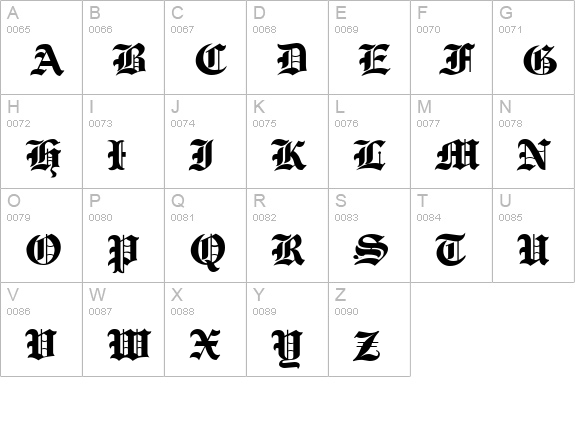
Old Cologne Regular is the standard, neutral variant in the Old typeface family \xE2\x80\x94 well suited to general body text, paragraphs, and standard typographic work.
Old Cologne Regular font is a timeless and classic typeface that exudes elegance and sophistication. Its vintage style brings a sense of nostalgia and charm to any project it is used in. The clean lines and balanced proportions make it versatile and suitable for a wide range of design applications. The best part about Old Cologne Regular font is that it is completely free to download at FontsMarket.com. This means that you can access this beautiful font without any cost, making it a valuable addition to your font collection. Whether you are working on a branding project, a poster design, or any other creative endeavor, Old Cologne Regular font will elevate your work with its refined aesthetic. Don't miss out on the opportunity to enhance your designs with the timeless beauty of Old Cologne Regular font. Download it for free today at FontsMarket.com and let your creativity shine.